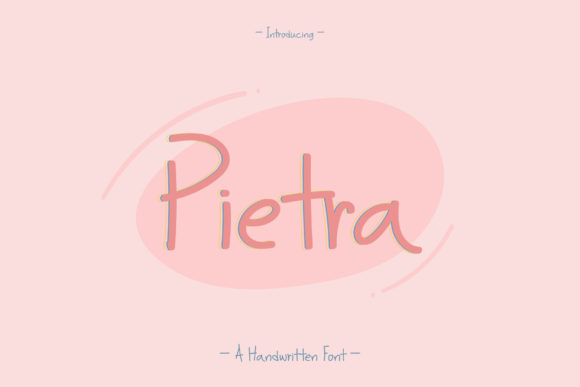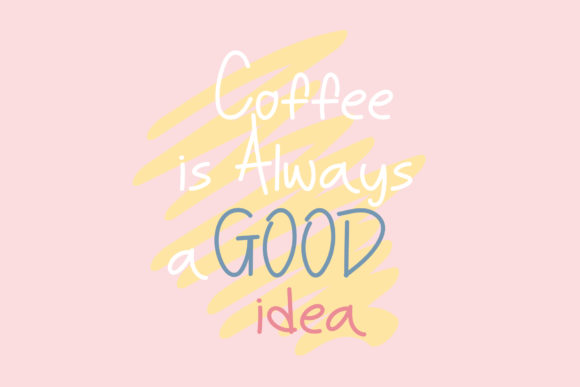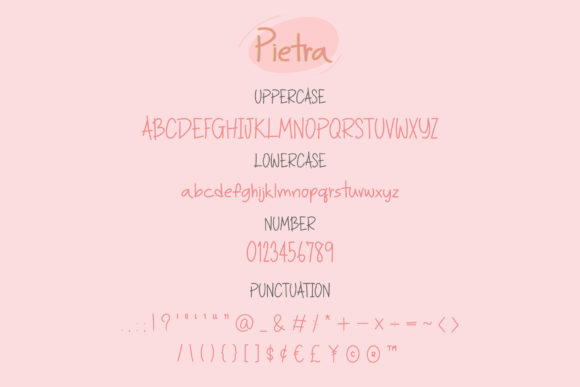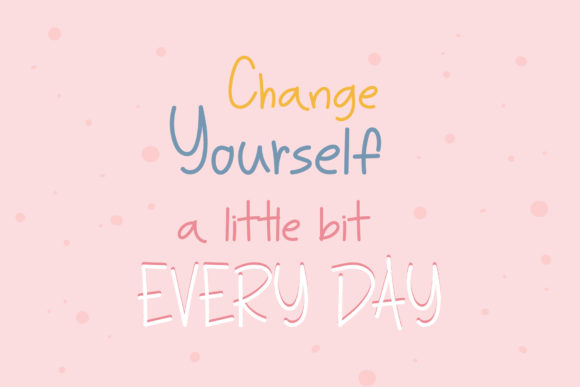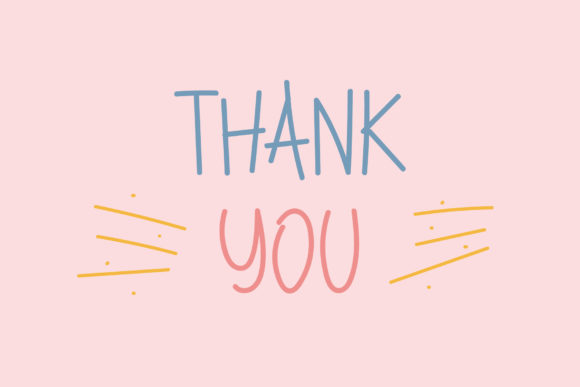
Pietra Font
About Pietra Font
Pietra is a simple and neat handwritten font. Whether you’re looking for fonts for Instagram or calligraphy scripts for DIY projects, this font will turn any creative idea into a true piece of art!